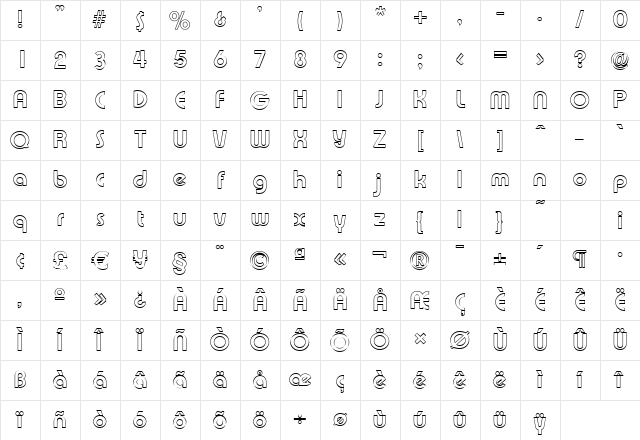
BrianBeckerOutline Bold
BrianBeckerOutline Family
Complete BrianBeckerOutline Bold glyph index. Displaying only characters natively supported by BrianBeckerOutline Bold font.
Design Context for BrianBeckerOutline
BrianBeckerOutline is built around its visual character rather than neutral utility - its distinctive forms are designed to make an impression at display sizes. Its bold stroke weight gives it real presence on the page.
Font Pairing: Pair with a clean neutral sans-serif for body copy to let BrianBeckerOutline's character lead without overwhelming the composition.
Pro Tip: Use BrianBeckerOutline exclusively at display sizes - it was designed to be seen, not read at length. Let a neutral companion handle body copy.